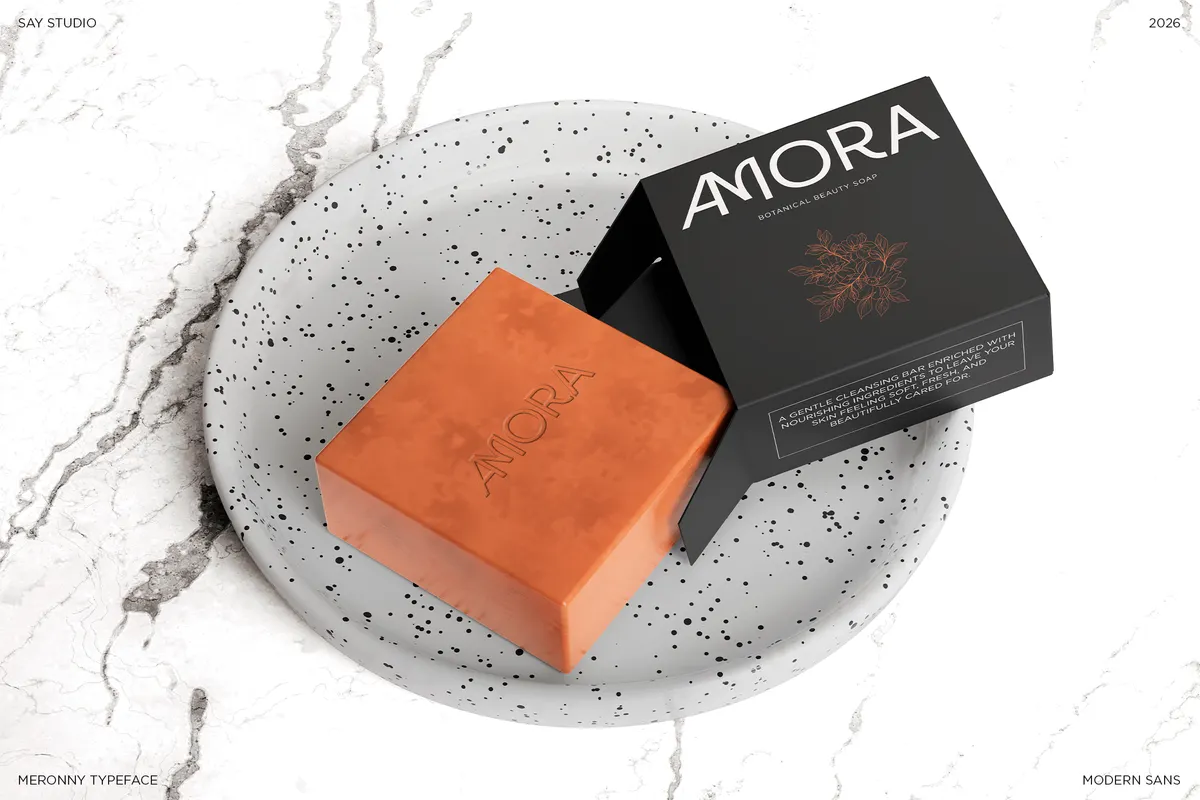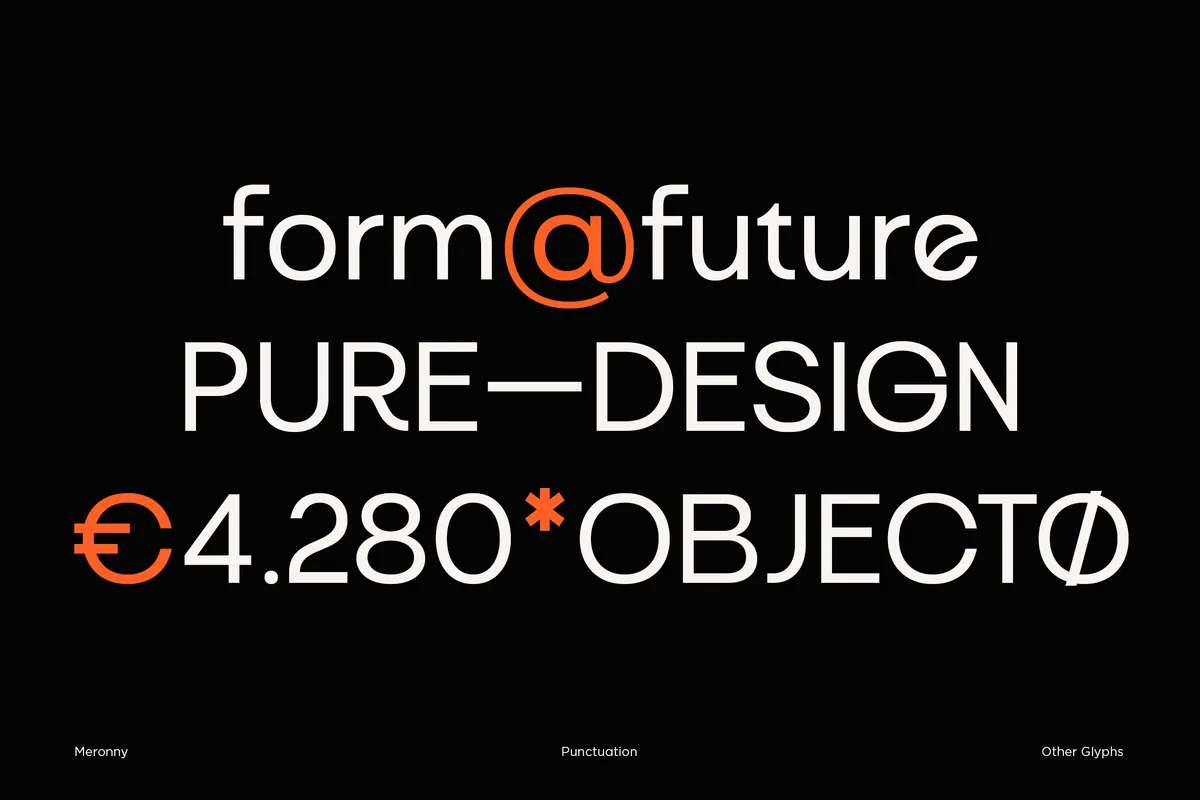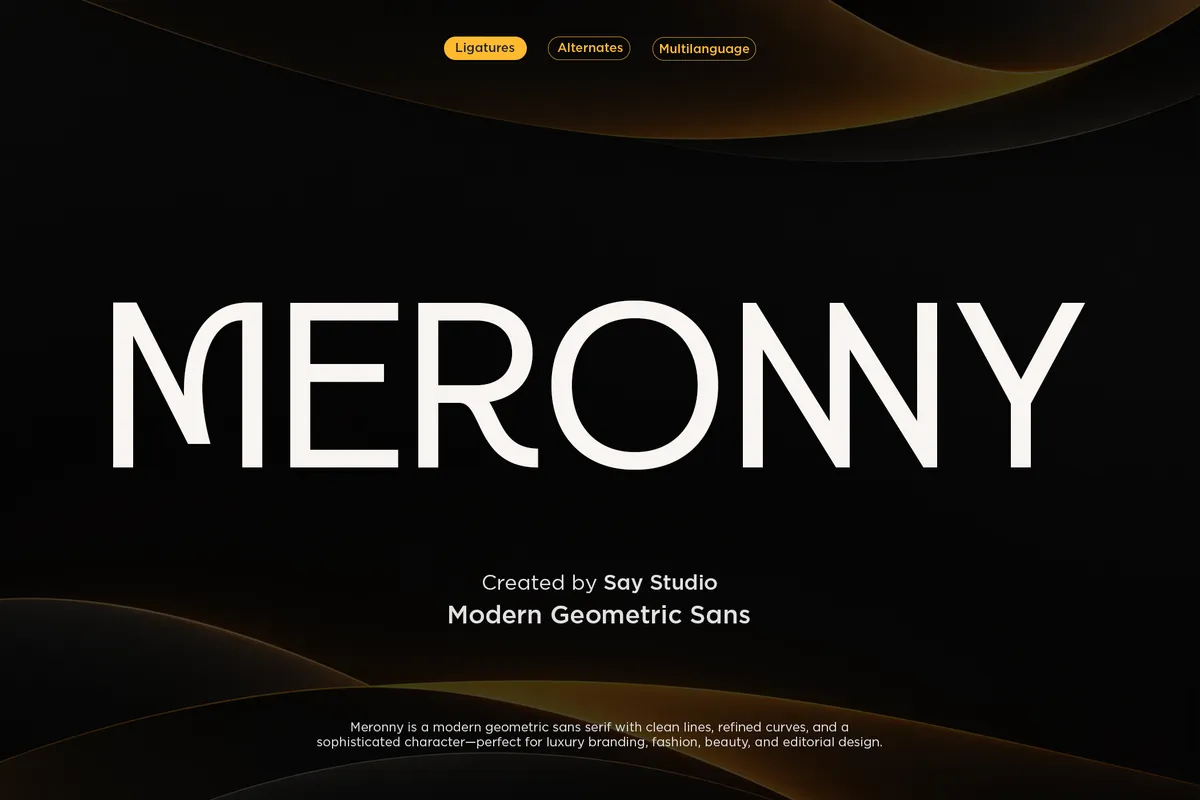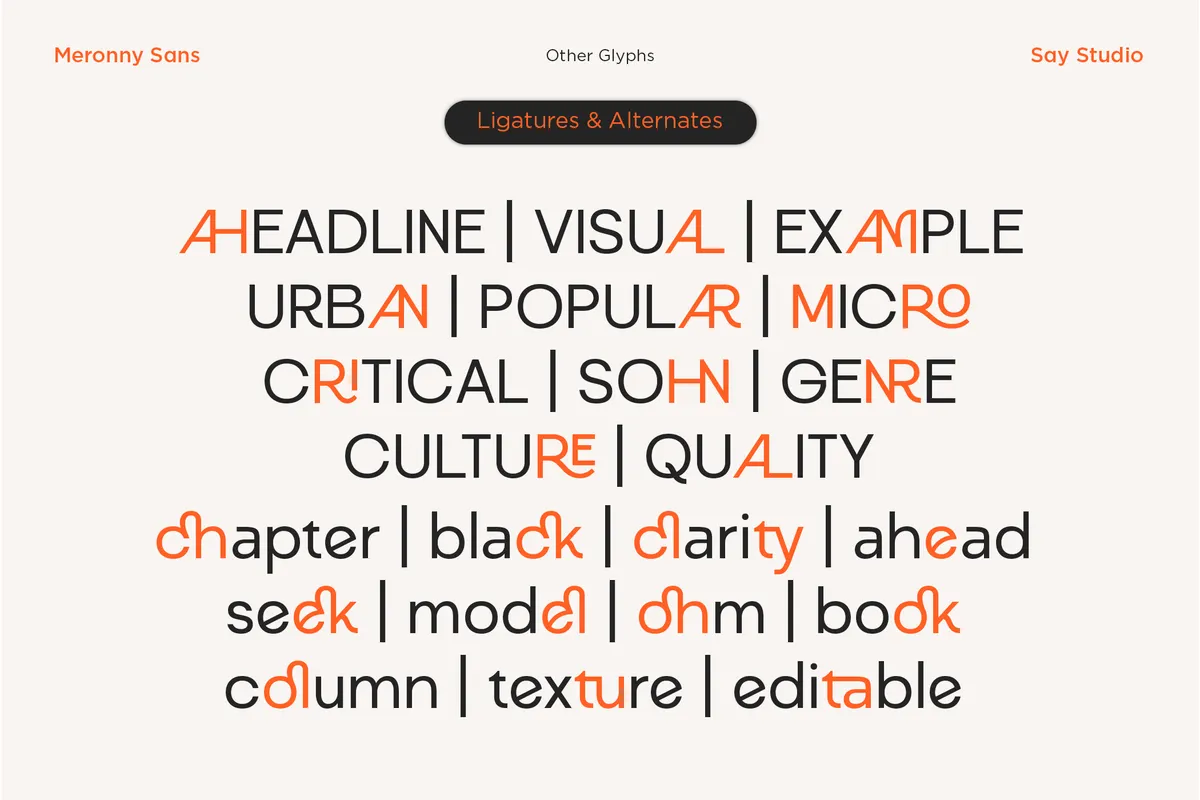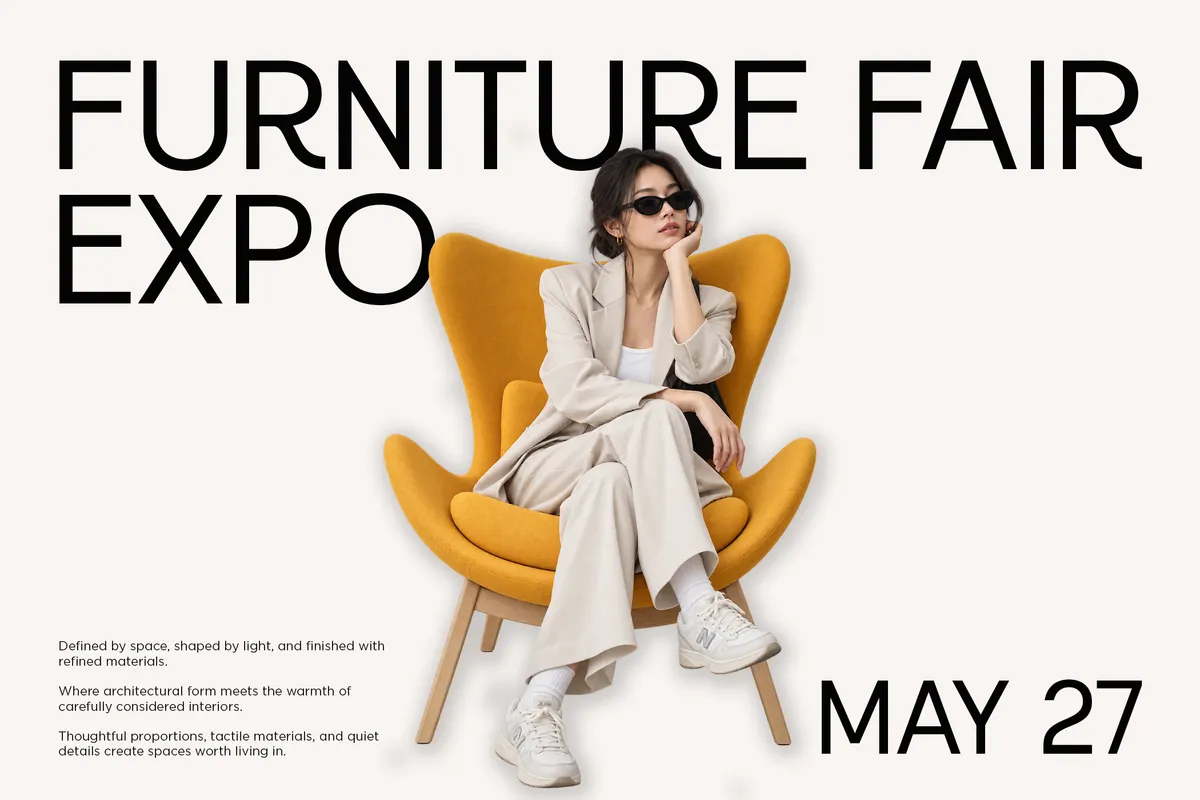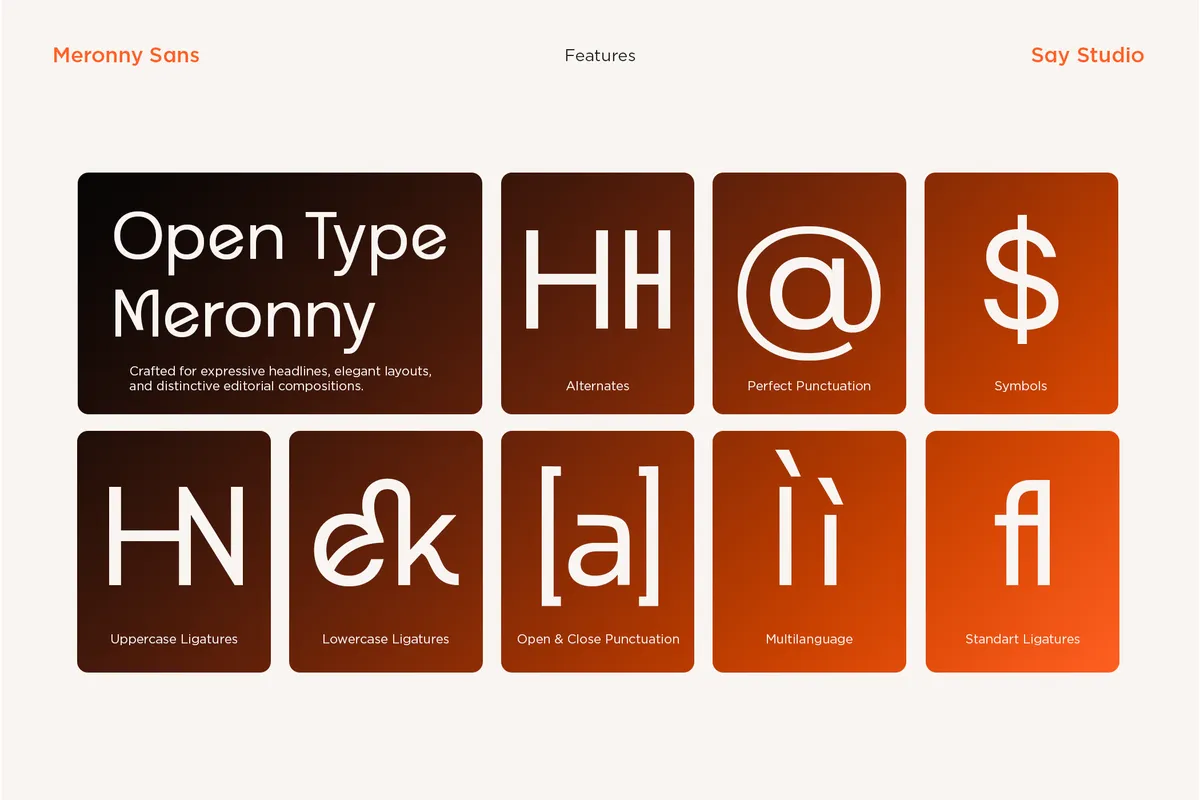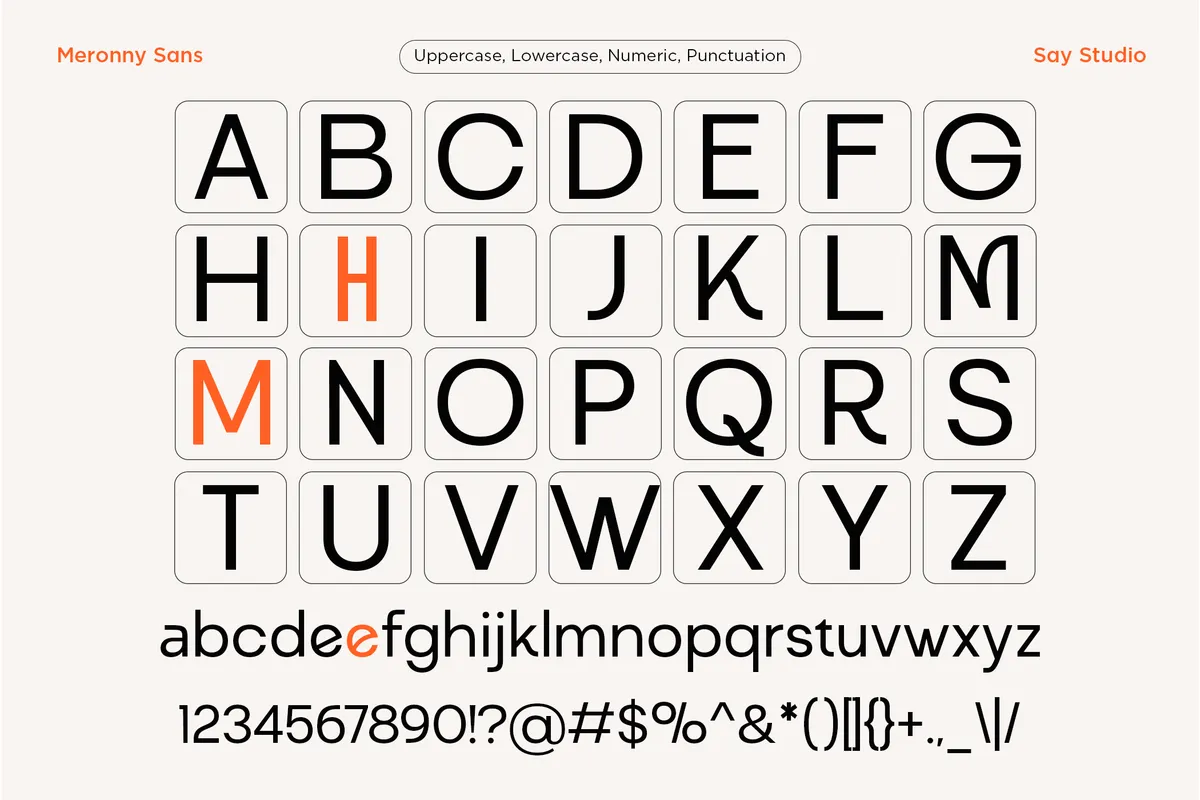
Meronny - Geometric Ligature Sans Serif Font
Meronny is a geometric sans serif font with round bowls, flat terminals, and a set of joined capitals where the diagonal of one letter runs straight into the stem of the next — AH, AM, NN, RE. The lowercase gets the same treatment on ch, ck, ol and ty, so a word can be set plain or fused.
The ligatures are where the face earns a logo; set plain, it sits quietly in a layout. Use it for furniture and interior brands, cosmetics packaging, architecture studio identities, exhibition posters, product labels, fashion lookbooks, and gallery signage.
- 23 discretionary ligatures for capital and lowercase pairs;
- alternates for H, M and e;